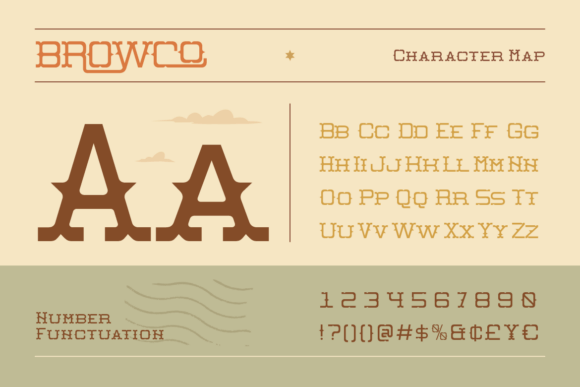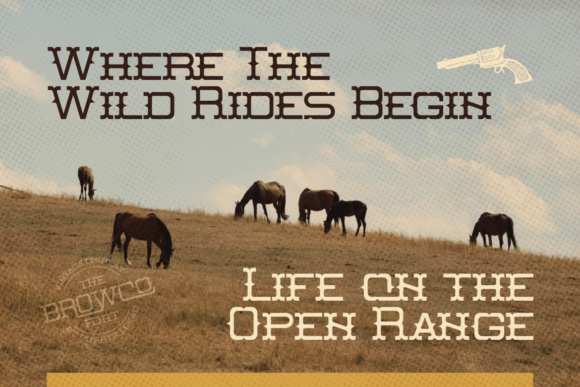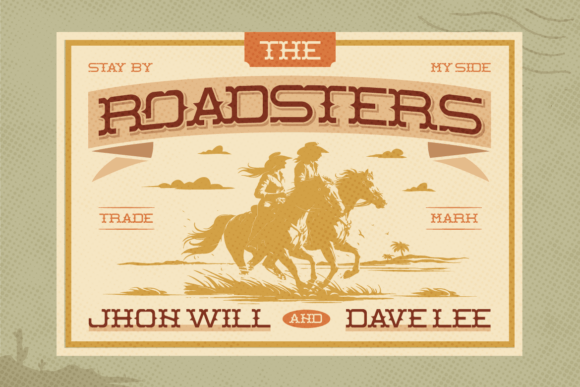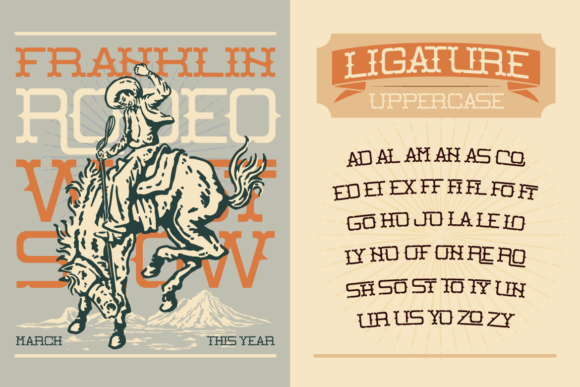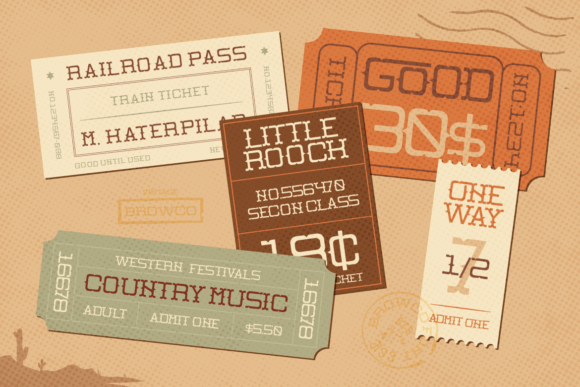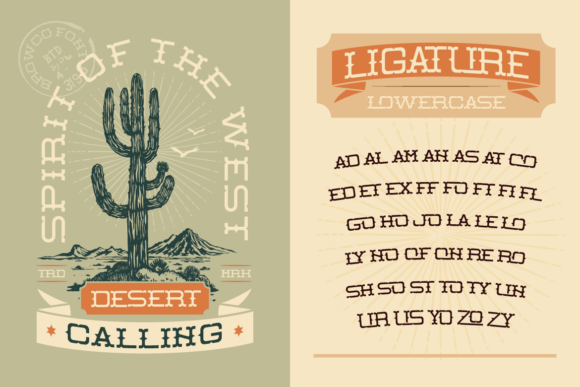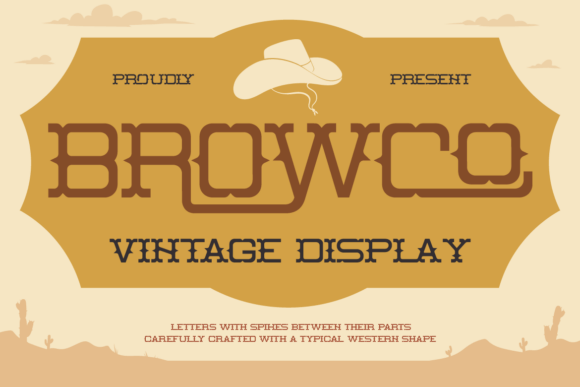
Browco Font: A Wild West-Inspired Typeface for Your Design Needs
Are you looking for a font that can add a touch of nostalgia and adventure to your design projects? Look no further than the Browco font, a bold and distinctive typeface inspired by the letters with spikes in American Wild West style. In this article, we’ll take a closer look at the characteristics of the Browco font, its uses, and why it’s a great choice for designers and crafters.
Introducing Browco Font
Proudly presented, Browco is a font that embodies the spirit of the Wild West. Its bold letters are adorned with sharp spikes between their parts, giving it a unique and vintage look that’s sure to grab attention. The font’s design is inspired by the iconic letters with spikes often seen in American Wild West-style signage, posters, and logos.
Characteristics of Browco Font
The Browco font is characterized by its bold, rugged, and adventurous look. Some of its key features include:
• Bold letters: The font features bold, chunky letters that are perfect for creating eye-catching designs.
• Sharp spikes: The sharp spikes between the letters give the font its distinctive Wild West look.
• Vintage feel: The font’s design is inspired by classic Wild West-style signage, giving it a nostalgic and retro feel.
Uses of Browco Font
The Browco font is perfect for creating a wide range of design projects that require a touch of the Wild West style. Some of its uses include:
• Branding: Use the Browco font to create bold and eye-catching logos for your brand.
• Posters: Create vintage-style posters for movies, events, or products with the Browco font.
• Logos: Design unique and memorable logos for your business or organization.
• Themed events: Use the Browco font to create invitations, flyers, and other promotional materials for Wild West-themed events.
• Project design: Add a touch of the Wild West style to your project designs, such as brochures, flyers, and presentations.
Why Choose Browco Font?
So why choose the Browco font for your design projects? Here are just a few reasons:
• Unique look: The Browco font has a distinctive and bold look that’s sure to grab attention.
• Vintage feel: The font’s vintage feel is perfect for creating nostalgic and adventurous designs.
• Versatility: The Browco font can be used for a wide range of design projects, from branding to posters and logos.
• Ease of use: The font is easy to read and use, making it perfect for designers and crafters of all skill levels.
Tips for Using Browco Font
Here are a few tips for using the Browco font in your design projects:
• Use it boldly: The Browco font is designed to be used boldly, so don’t be afraid to experiment with different sizes and colors.
• Pair it with other fonts: Try pairing the Browco font with other fonts to create a unique and interesting design.
• Experiment with colors: The Browco font looks great in a range of colors, from bold and bright to muted and earthy.
In conclusion, the Browco font is a bold and distinctive typeface that’s perfect for designers and crafters looking to add a touch of the Wild West style to their design projects. With its unique look, vintage feel, and versatility, the Browco font is a great choice for a wide range of design needs.